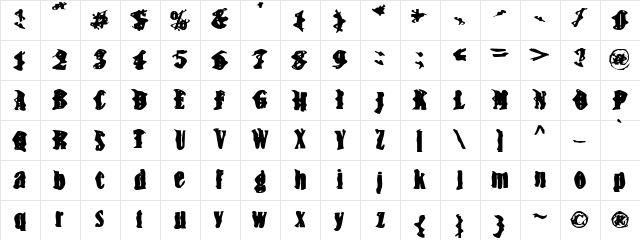
BN-Snake Regular
Design Context for BN-Snake Typeface
BN-Snake is a composed and adaptable typeface that performs quietly and consistently across a wide range of design contexts.
Pro Tip: Pair BN-Snake with a font of contrasting weight or personality to build a more expressive typographic hierarchy.